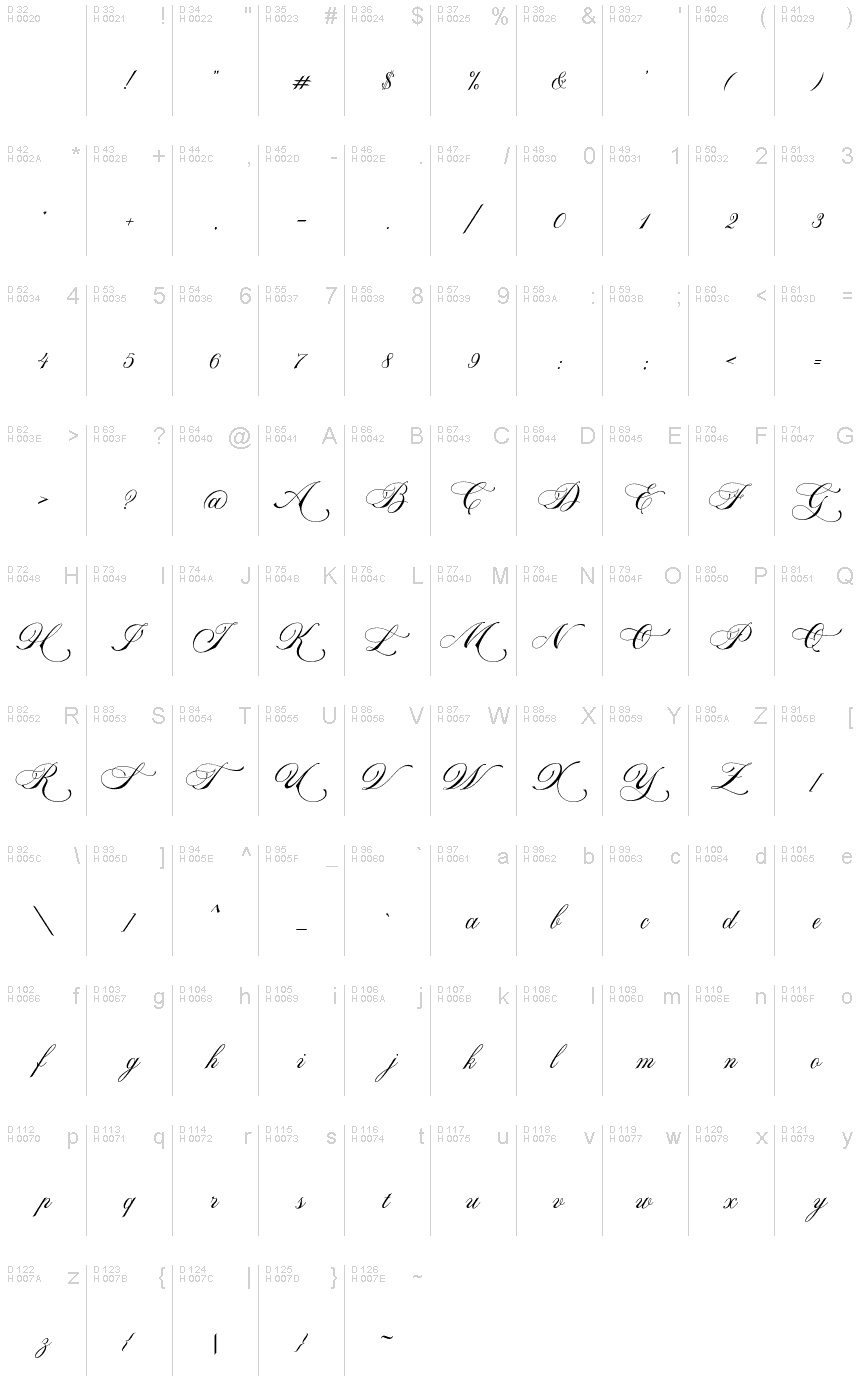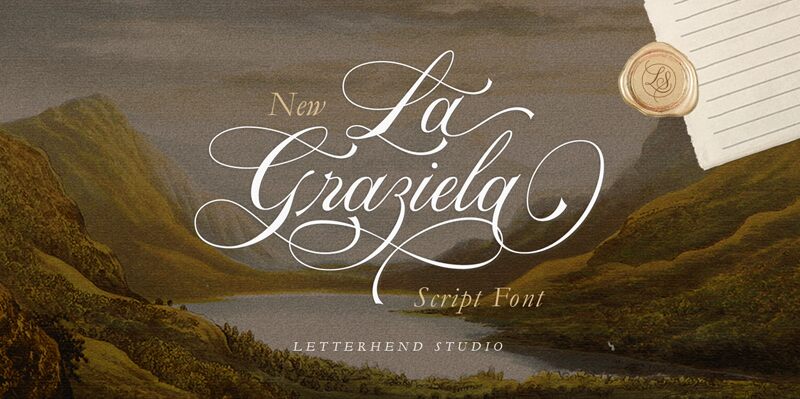
La Graziela, designed by Letterhend Studio, is an exquisite calligraphy font with a semi-light weight. Its graceful strokes and delicate curves make it perfect for elegant wedding invitations, sophisticated branding projects, and romantic greeting cards. This font's timeless charm adds a touch of sophistication to any project, whether it be high-end fashion editorials or luxurious product packaging. La Graziela's versatility allows it to effortlessly elevate your designs and capture the essence of refined beauty. With its alluring calligraphic style, this font is sure to leave a lasting impression on your audience.